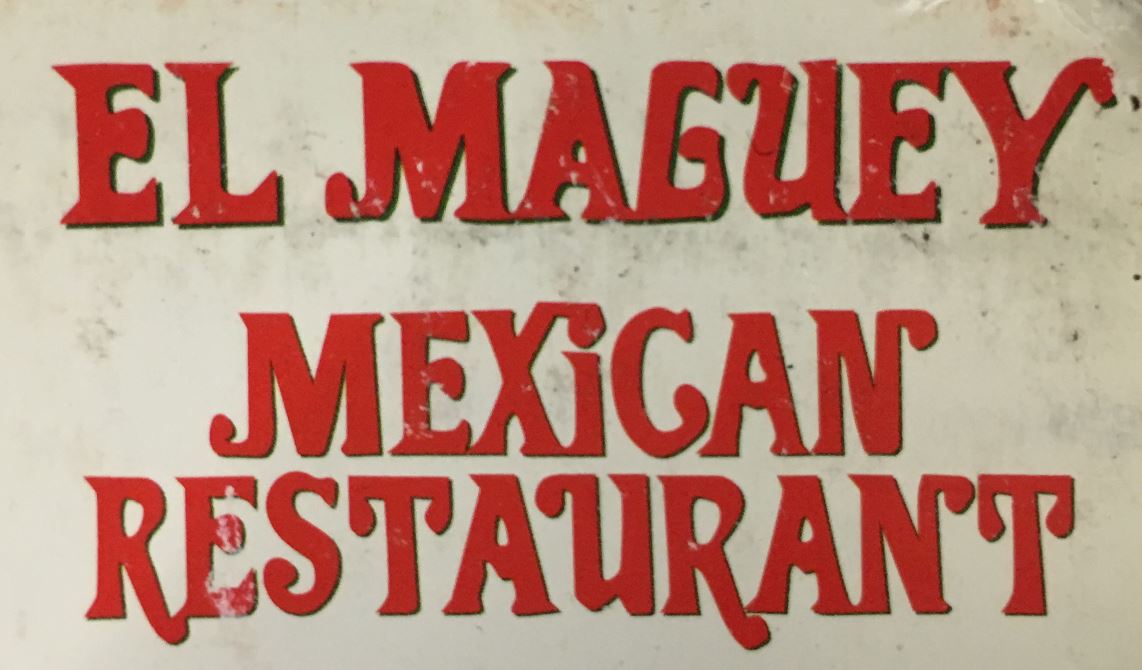
Need Help 70s/Mexican Restaurant Font
I can't seem to find what font this is. I've tried looking up the style itself but I'm coming up with nothing. Can anyone ID this for me please?
Yes, hand drawn, we did a lot of that in the 70s. Loved those casual designs where precision didn't count.
I did a search and didn't find one, but there is a font out there that looks similar. I see it used on menus.
I'm torn between thinking it's a font and thinking it's not. If you look at the other images online of the logo the E's are exactly the same, I can't quite get an image good enough to easily trace it. We're super swamped so I just don't have the time I'd like to take to recreate it. I found one that was close but not close enough, MPI DeLittle. I sent them a sample and explained that if they don't have their artfiles we're going to have to go with a different font. :(
If you look at the other images online of the logo the E's are exactly the same
That could be the result of the designer being "lazy" and duplicating the first "E" they setup. I do it when tracing custom text. I'll use the E to build a bunch of different letters.
I hear ya, I've done that on a few occasions. I feel like there has to be a file out there somewhere, how do all these restaurants have the same logo, do they seriously have someone recreate it every single time one opens!? That's crazy!
These are definitely letters created manually, not a typeface. The letterforms are somewhat evocative of Davida Bold (available in a number of type libraries, including VGC and Letraset during the seventies and eighties).